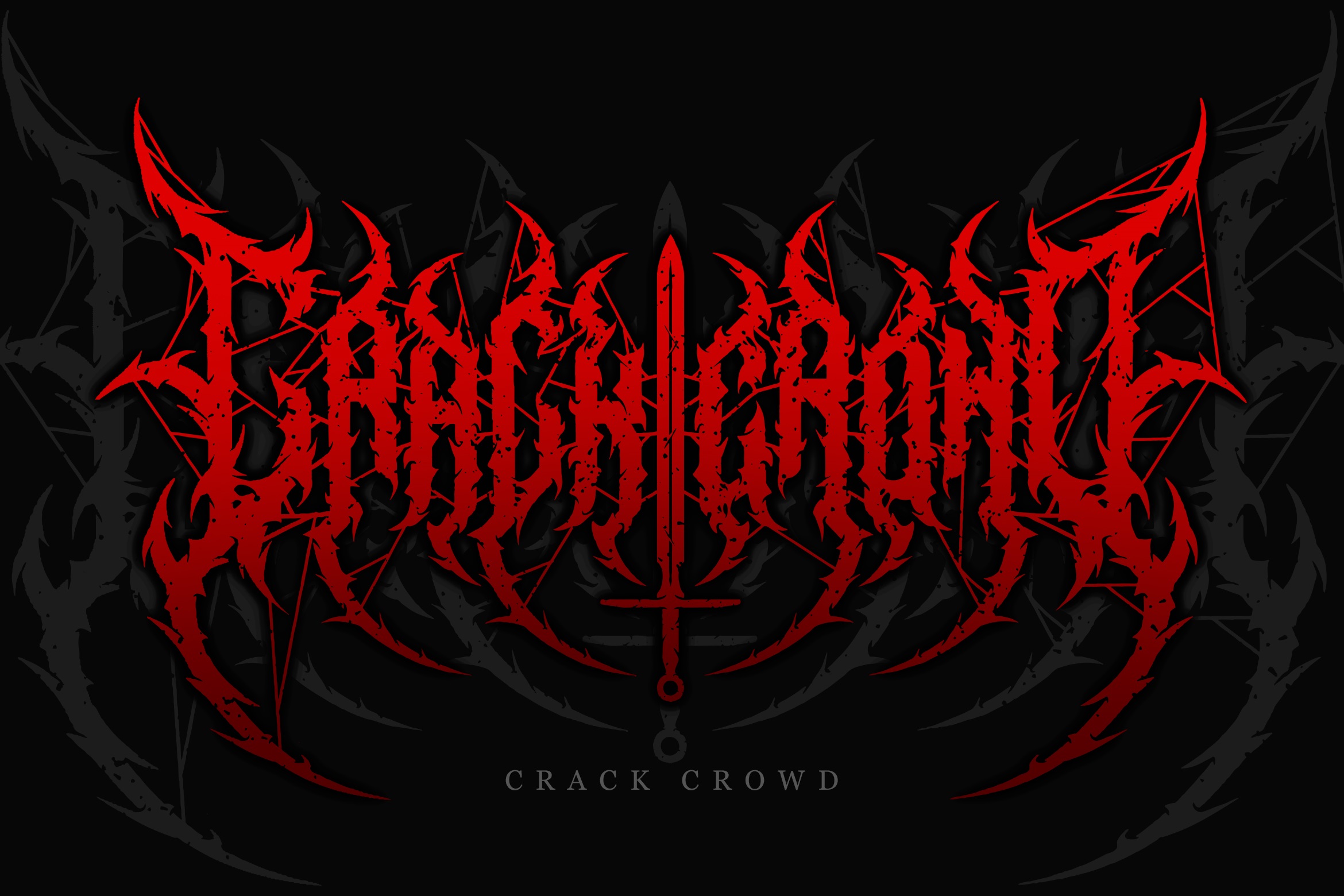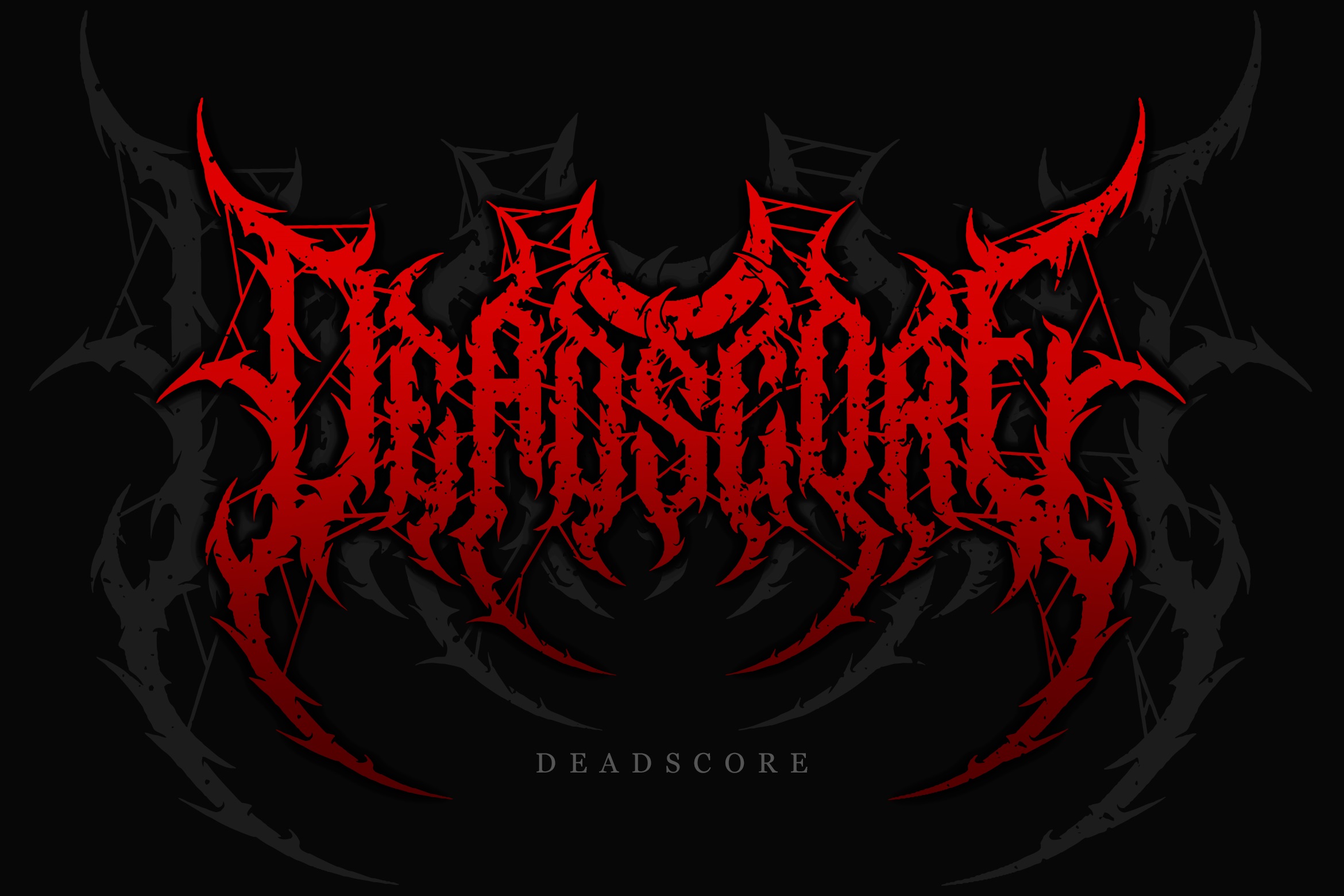
Sabersong Font
Sabersong Font is a carefully crafted font, which features a very heavy black metal feel. Sabersong suitable for metal band logos, merchandise, clothing, apparel, or anything that needs a black metal feel.